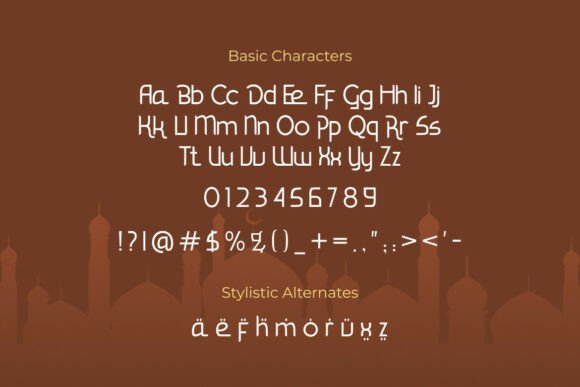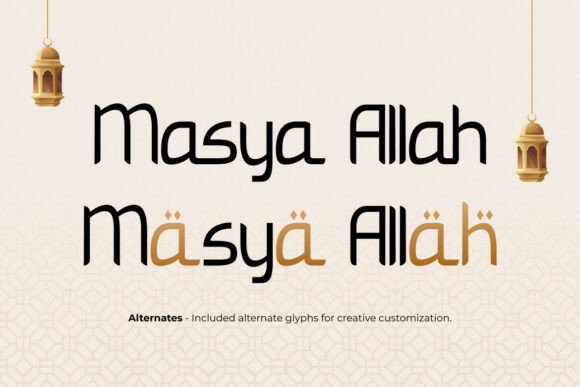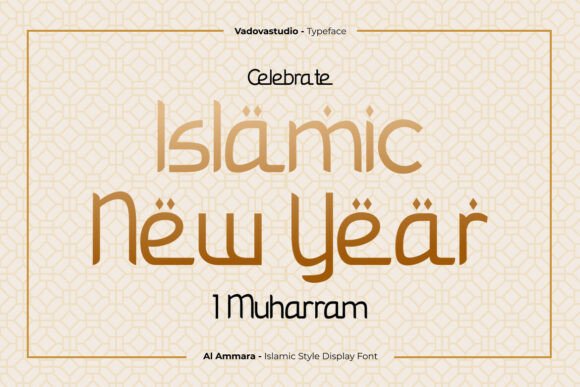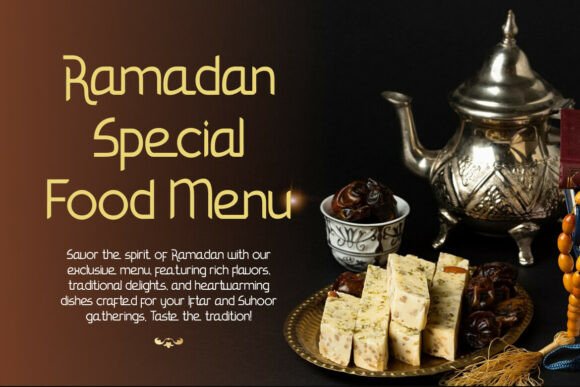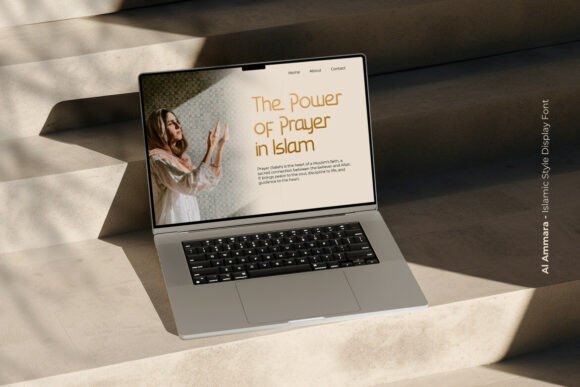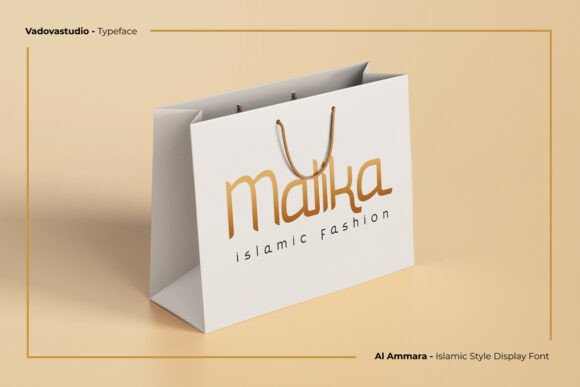
Introducing Al Ammara Font: A Modern Islamic Display Font
In the realm of typography, fonts play a crucial role in conveying the message, tone, and cultural context of a design. For designers and crafters working on Islamic-themed projects, finding the right font that balances modernity with cultural nuance can be a challenge. This is where Al Ammara Font comes into play – a modern Islamic display font that seamlessly blends clean geometric construction with subtle Arabic-inspired detailing.
Design Characteristics of Al Ammara Font
Al Ammara Font is distinguished by its smooth curves, minimal stroke contrast, and distinctive diacritic-style accents. These design elements work in harmony to bring a cultural and spiritual nuance to the font, making it highly relevant for modern Islamic-themed designs. The clean geometric construction ensures that the font looks professional and sleek, while the subtle Arabic-inspired detailing adds a touch of authenticity and cultural connection.
Key Features of Al Ammara Font
- Clean Geometric Construction: The font features a modern and sleek geometric design, making it perfect for designs that require a clean and professional look.
- Subtle Arabic-Inspired Detailing: The font incorporates subtle Arabic-inspired detailing, such as diacritic-style accents, which add a cultural and spiritual nuance to the design.
- Smooth Curves: The letterforms feature smooth curves, which contribute to the font’s modern and elegant appearance.
- Minimal Stroke Contrast: The font has minimal stroke contrast, which ensures that the design looks balanced and harmonious.
Use Cases for Al Ammara Font
Al Ammara Font is highly versatile and can be used in a variety of design projects, including:
- Branding: The font is perfect for creating logos, business cards, and other branding materials for Islamic organizations, businesses, and events.
- Ramadan and Eid Campaigns: The font’s cultural and spiritual nuance makes it an excellent choice for Ramadan and Eid campaigns, including social media graphics, posters, and flyers.
- Mosque-Related Visuals: The font can be used to create visually appealing designs for mosques, including brochures, posters, and website headers.
- Editorial Layouts: The font is suitable for editorial layouts, such as magazines, newspapers, and blogs, that focus on Islamic topics or cater to a Muslim audience.
- Social Media Content: The font can be used to create engaging social media content, including graphics, posters, and infographics, that resonate with a Muslim audience.
Why Choose Al Ammara Font?
Al Ammara Font offers a unique combination of modernity and cultural nuance, making it an excellent choice for designers and crafters working on Islamic-themed projects. Here are some reasons why you should consider using Al Ammara Font:
- Cultural Relevance: The font’s subtle Arabic-inspired detailing and diacritic-style accents ensure that the design resonates with a Muslim audience.
- Modern Appeal: The font’s clean geometric construction and smooth curves give it a modern and elegant appearance.
- Versatility: The font can be used in a variety of design projects, from branding and advertising to editorial layouts and social media content.
- Professional Look: The font’s clean and balanced design ensures that the final product looks professional and sleek.
Al Ammara Font is a modern Islamic display font that offers a unique combination of clean geometric construction and subtle Arabic-inspired detailing. Its cultural relevance, modern appeal, versatility, and professional look make it an excellent choice for designers and crafters working on Islamic-themed projects. Whether you’re creating branding materials, Ramadan and Eid campaigns, mosque-related visuals, editorial layouts, or social media content, Al Ammara Font is an excellent choice.